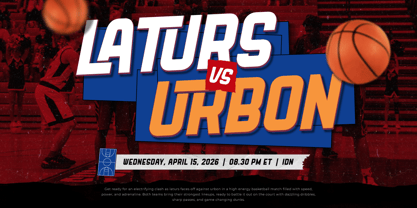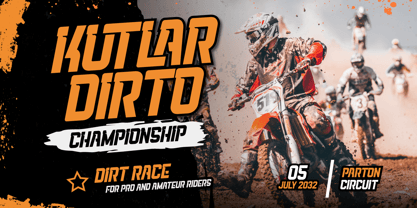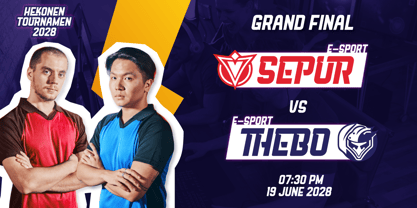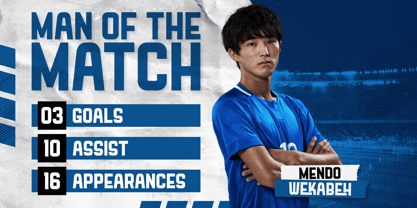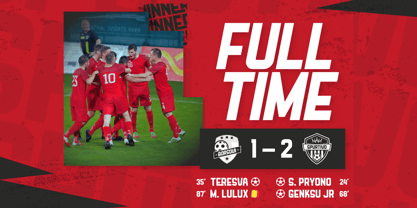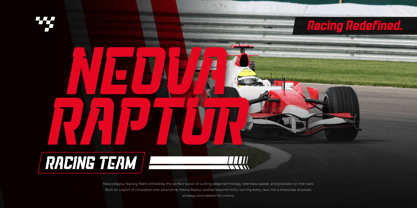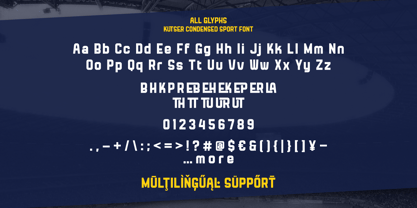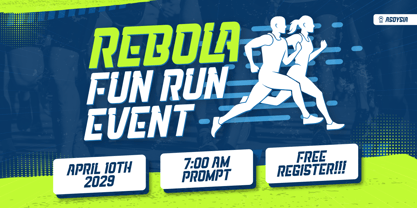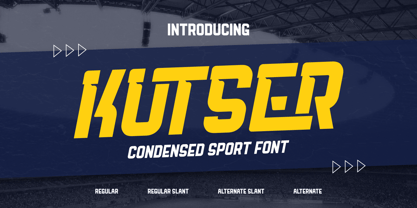
Kutser
The Kutser Font Family was designed by Rozikan and published by Twinletter. Kutser contains 4 styles and family package options. More about this family
FUEL YOUR DESIGNS WITH SPEED, POWER, AND COMPETITIVE EDGE.
Kutser is a robust, condensed sport font engineered to capture the relentless energy of athletics and high-speed competition. With its aggressive stance and forward-leaning slopes, this typeface doesn’t just speak—it shouts intensity. Whether for jerseys, logos, or headlines, Kutser delivers a knockout punch of professionalism and motion.
This versatile font family includes four high-impact styles: the solid Regular, the racing Regular Slant, and the distinctive Alternate Slant. Designed for maximum flexibility, these styles can be layered or used individually to create compelling visual hierarchy and a sense of explosive movement. Equipped with full uppercase and lowercase letters, numerals, punctuation, and broad multilingual support, Kutser is the ultimate tool for sports branding, esports graphics, motorsports, and any project that demands a bold, win-focused attitude.
Drive your message home with Kutser—where every letter counts and every line moves.
- All glyphs and Feature
- Multilingual Support: Fully supports 85+ languages, including:
Afrikaans, Albanian, Asu, Basque, Bemba, Bena, Breton, Catalan, Chiga, Cornish, Croatian, Czech, Danish, Dutch, Embu, English, Esperanto, Estonian, Filipino, Finnish, French, Friulian, Galician, Gusii, Hungarian, Indonesian, Irish, Italian, Kabuverdianu, Kalenjin, Kamba, Kikuyu, Kinyarwanda, Latvian, Lithuanian, Lower Sorbian, Luo, Luxembourgish, Luyia, Machame, Makhuwa-Meetto, Makonde, Malagasy, Maltese, Manx, Meru, Morisyen, North Ndebele, Norwegian Bokmål, Norwegian Nynorsk, Nyankole, Oromo, Polish, Portuguese, Quechua, Romanian, Romansh, Rombo, Rundi, Rwa, Samburu, Sango, Sangu, Scottish Gaelic, Sena, Serbian, Shambala, Shona, Slovak, Slovenian, Soga, Somali, Spanish, Swahili, Swedish, Swiss German, Taita, Teso, Turkish, Upper Sorbian, Uzbek (Latin), Volapük, Vunjo, Walser, Zulu.